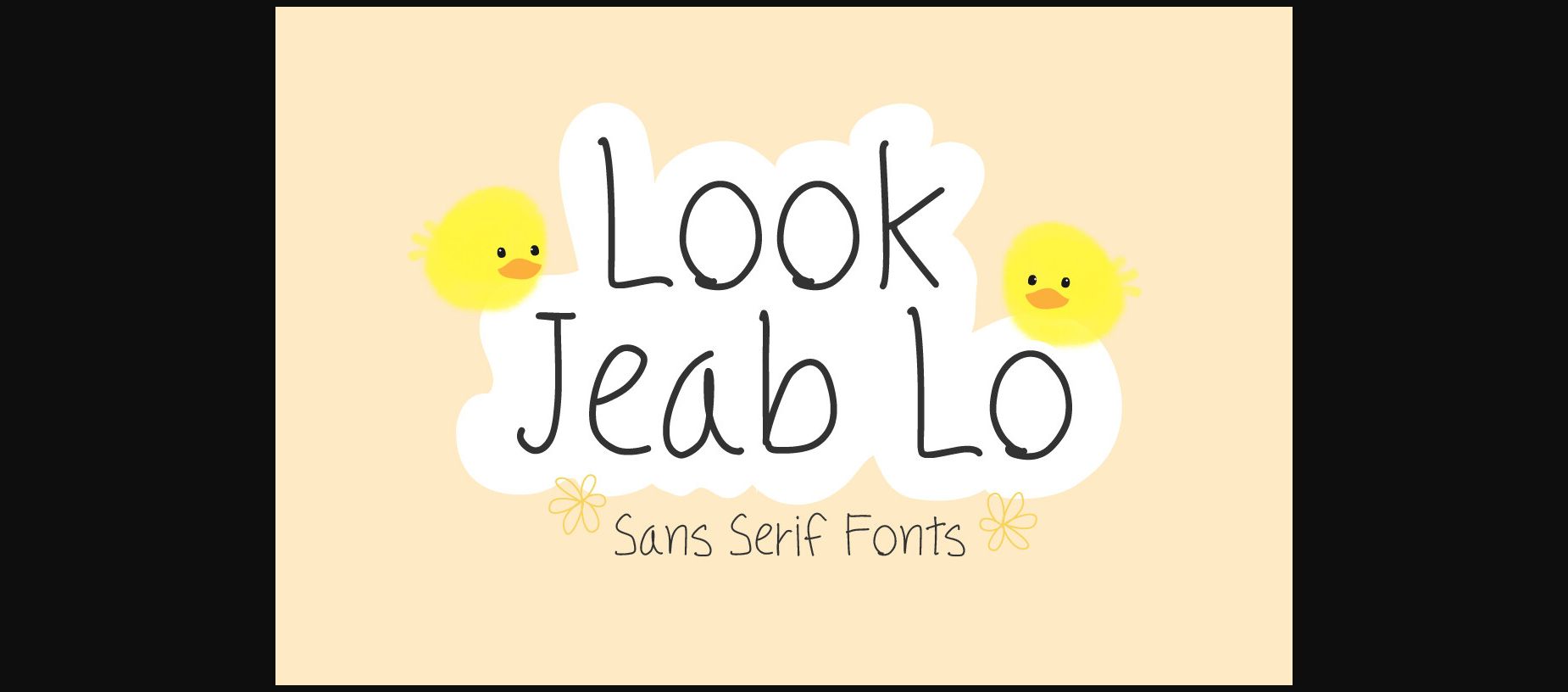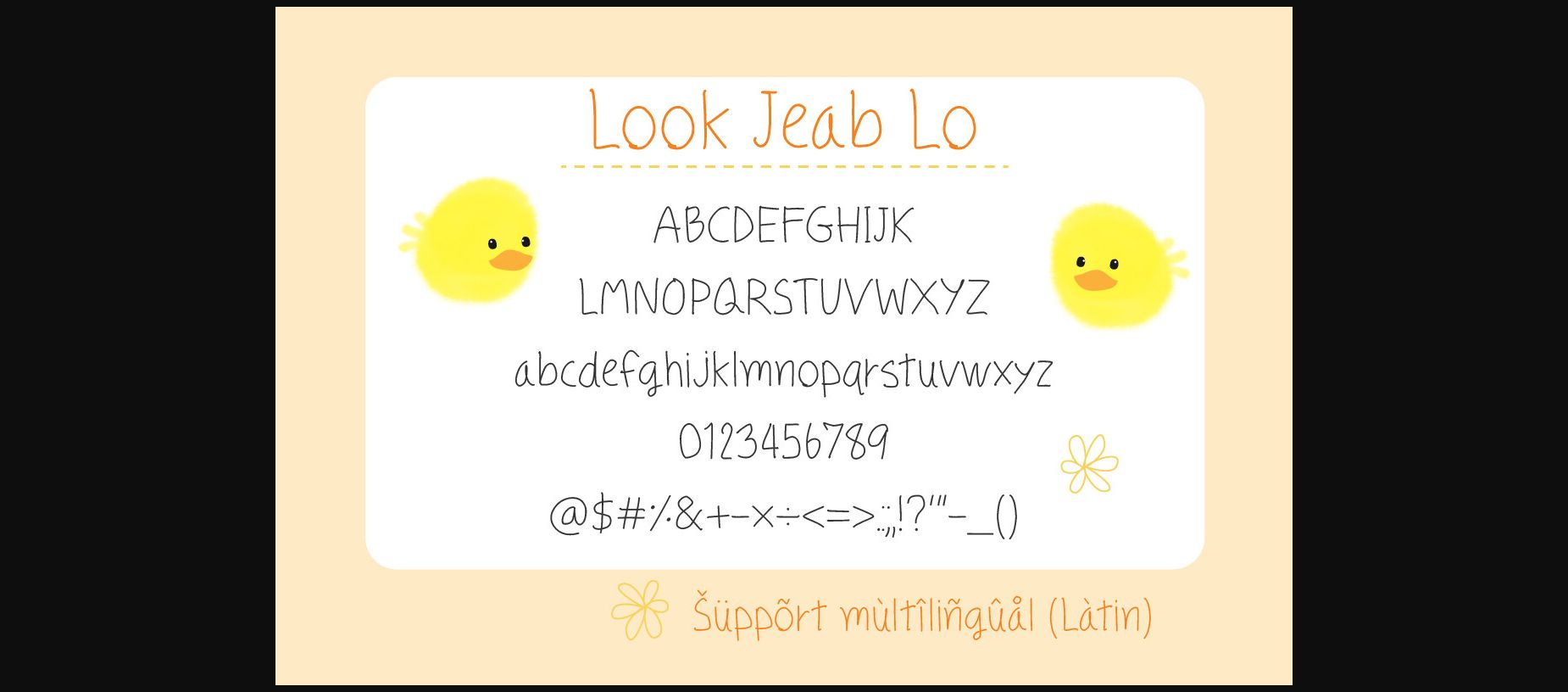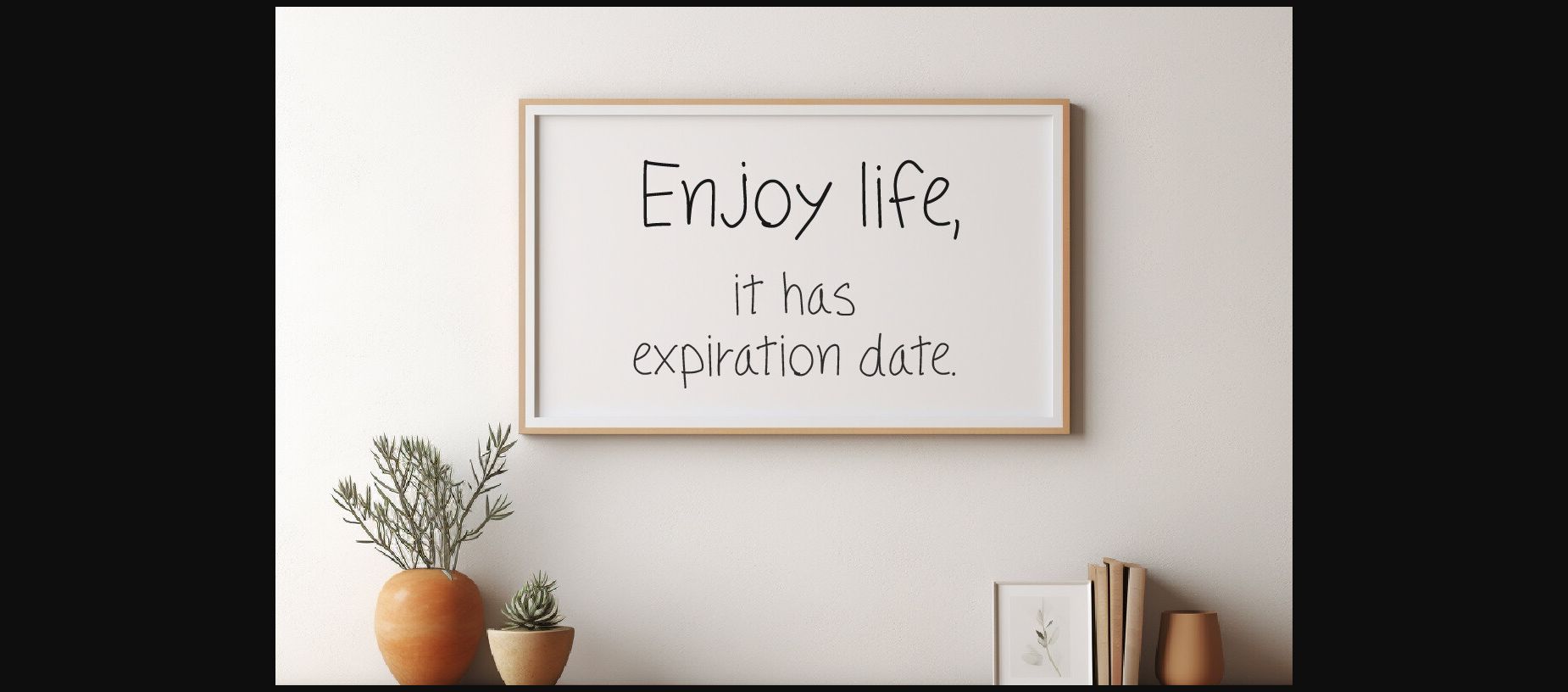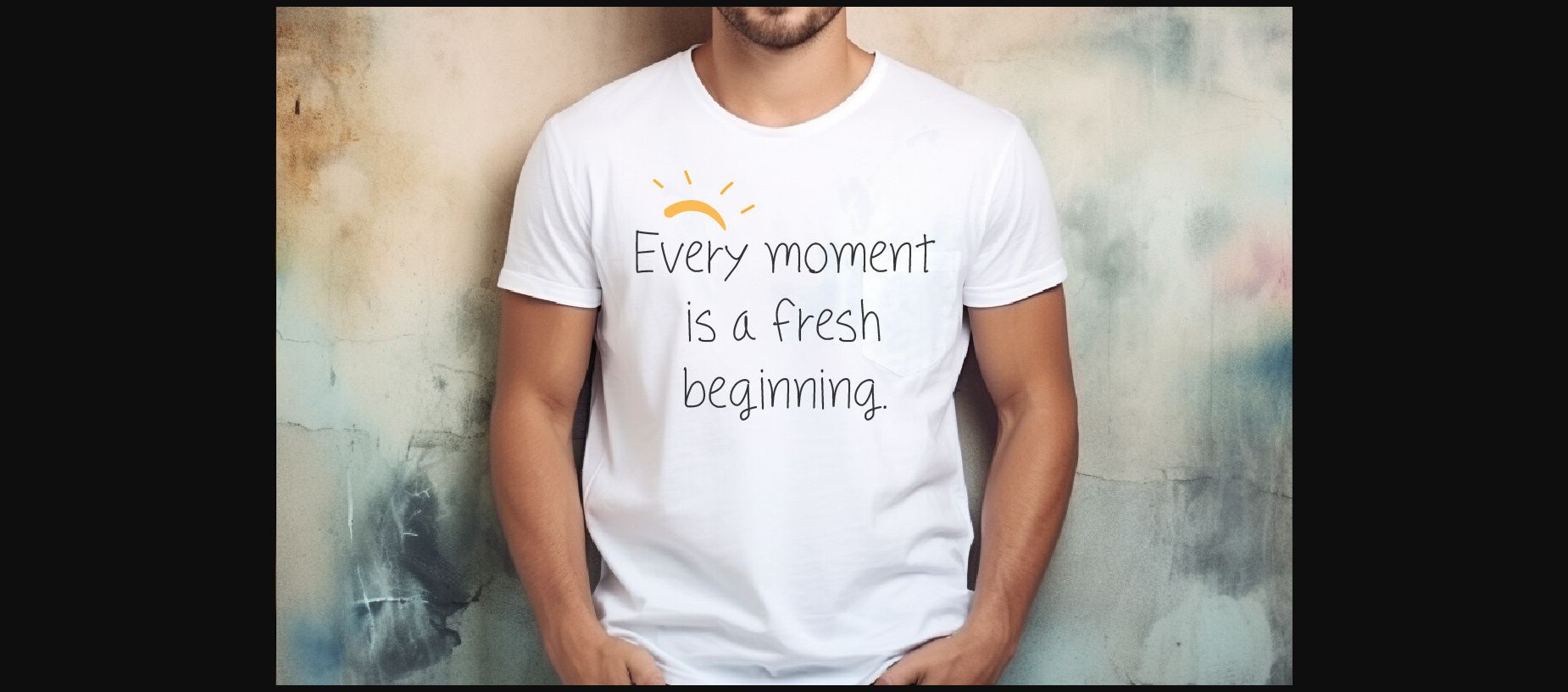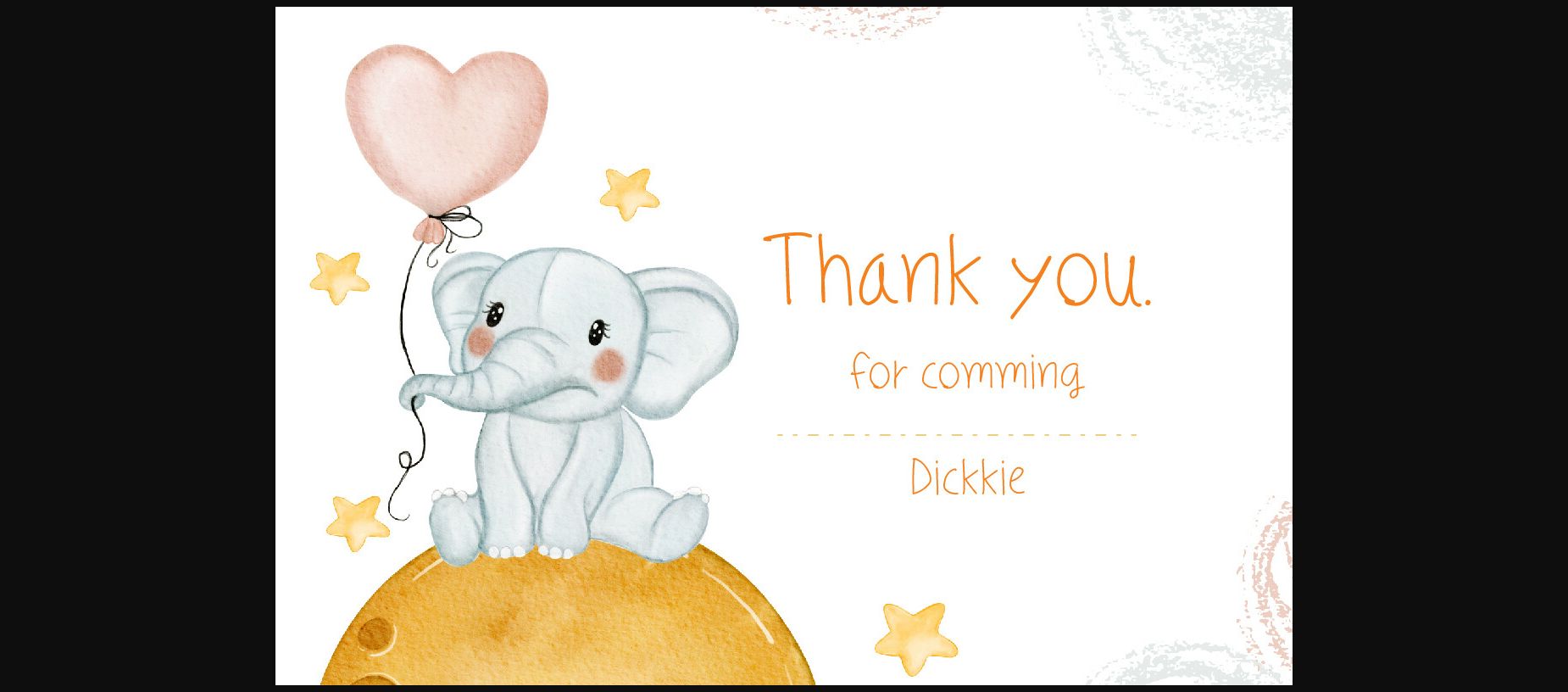
About Look Jeab Lo Font
Look Jeab Lo is a sweet and friendly sans serif font. Its natural and unique
style makes it incredibly fitting to a large pool of designs. The only limit is
your imagination!